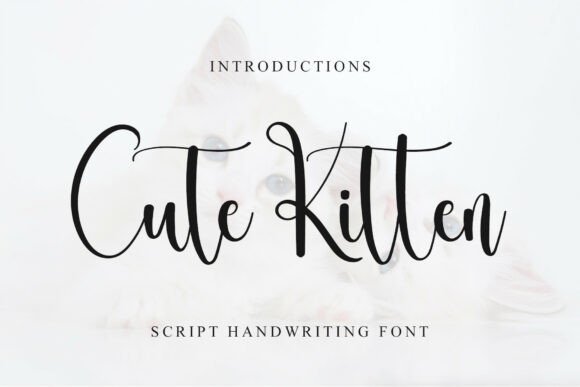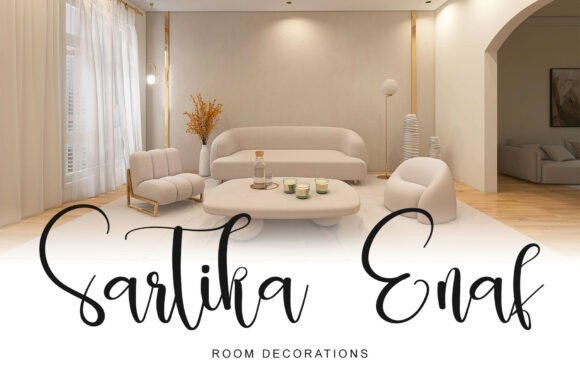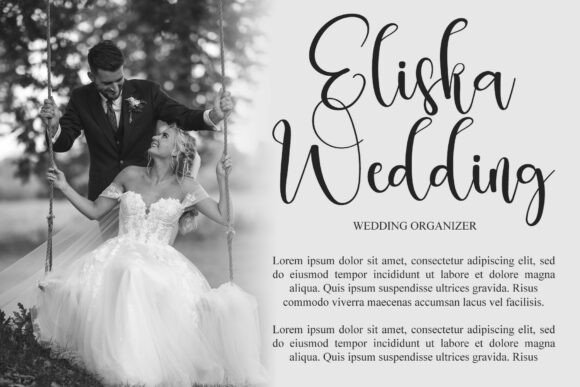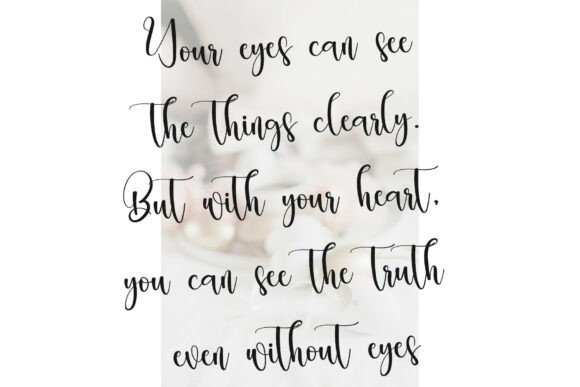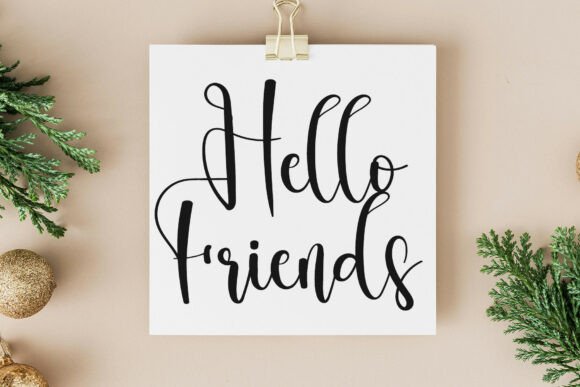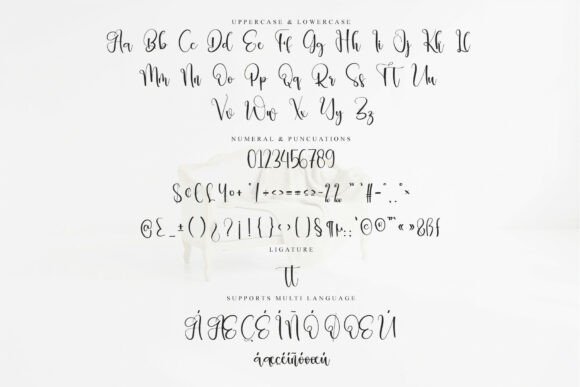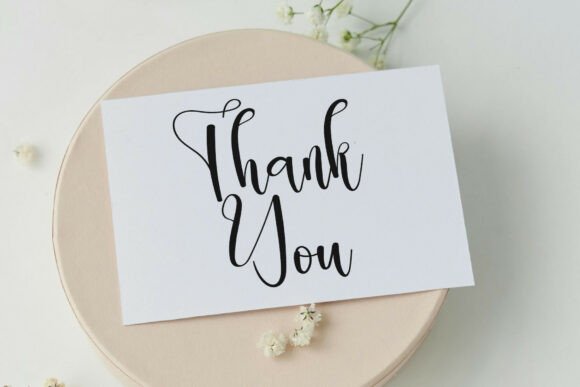
The Purrfect Font: Unleashing Creativity with Cute Kitten Font
Do you remember the feeling of scribbling with a favorite pen, watching the ink flow effortlessly onto the page? That’s the same sensation designers experience when they use the right font – a symphony of strokes, curves, and lines that bring their ideas to life. For creatives, finding the perfect font can be a game-changer, elevating their work from ordinary to extraordinary.
Enter Cute Kitten Font, a sophisticated script handwriting font that combines timeless elegance with a bold, vintage charm. This versatile font is perfect for designers seeking to create a lasting impression – whether it’s a stylish signature, a brand identity, or a nostalgic aesthetic. With its fluid strokes and dynamic flow, Cute Kitten Font is a valuable addition to any designer’s toolkit, offering a unique and powerful way to express their vision.
Cute Kitten Font Key Features
- Font Style: Whimsical, cursive script with a playful kitten theme, ideal for children’s books, greeting cards, and other fun designs.
- Character Count: Includes 100+ unique characters, including uppercase and lowercase letters, numbers, punctuation marks, and special symbols.
- Unique Characteristics: Features adorable kitten illustrations and graphics, adding a touch of whimsy and fun to any design project.
Cute Kitten Font Review
I recently had the chance to work with the ‘Cute Kitten Font’, and I’m here to share my honest thoughts about it.
- The font is incredibly playful and adorable, making it perfect for projects that require a touch of whimsy.
- The rounded edges and soft lines give it a childlike charm that’s sure to delight.
- The font is available in a range of weights, from light to bold, allowing for a good amount of flexibility in design.
- The font may not be suitable for formal or professional projects, as it can come across as too cute or juvenile.
- The font may not be as legible at smaller font sizes, which could impact readability in certain design contexts.
The ‘Cute Kitten Font’ is a delightful addition to any designer’s toolkit, but it’s crucial to understand its limitations and usage requirements. When used correctly, it can add a touch of magic to your designs. However, it’s not a one-size-fits-all solution, and designers should exercise caution when choosing it for more formal or complex projects.
The Cute Kitten Font is ideal for:
- Children’s book covers and illustrations
- Food and pet-related branding
- Cute and playful social media graphics